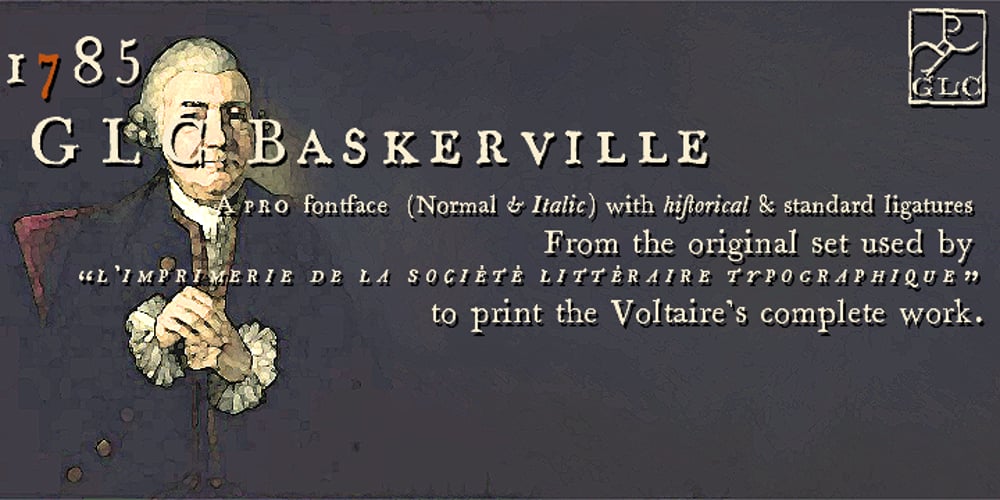
1785 GLC Baskerville
1785 GLC Baskerville font
1785 GLC Baskerville Font Family was designed by published by GLC. 1785 GLC Baskerville contains 2 styles and family package options. This family was created/inspired from the well-known Baskerville Roman and Italic typefaces created by John Baskerville, the English font designer. We were inspired by the original family sent by Baskerville’s wife after his death. The full Baskerville collection was bought by the French editor and author Pierre-Augustin Caron de Beaumarchais who used it to print – in Switzerland – for the first time the complete works of Voltaire (known as the “Kehl edition” from the “Imprimerie de la société littéraire typographique”). We have used this edition, with copies from 1785, to reconstruct these two genuine historical styles. The font faces, kerning, and spacing are scrupulously identical to the original. This Pro font includes characters for Western, Eastern and Central European languages (including Celtic) and Turkish, with a complete set of small caps, standard and “long s” ligatures in each of the two styles.